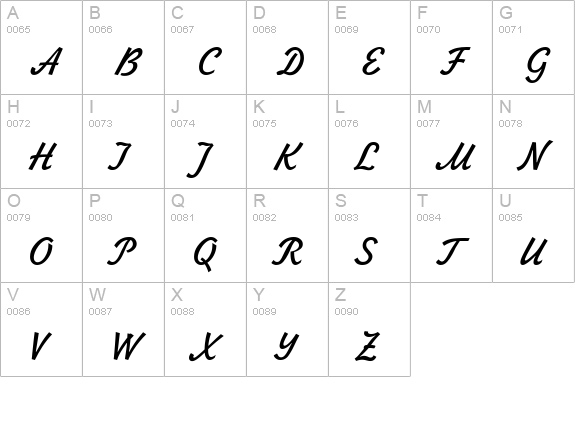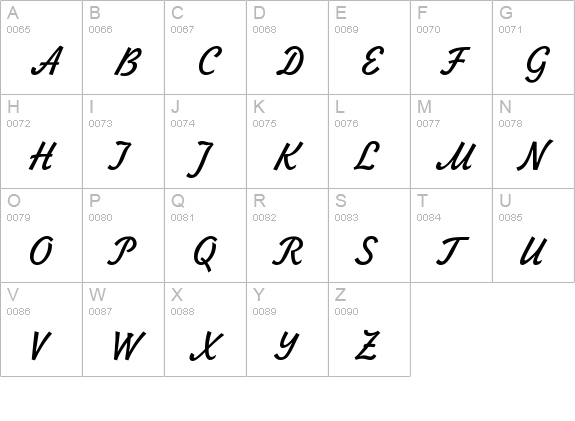
Laskoner Font Details
Introducing Laskoner, a stunning font that effortlessly combines elegance with a touch of modernity. With its sleek and sophisticated design, Laskoner is perfect for a wide range of creative projects, from branding to editorial design and beyond. This captivating font features clean, crisp lines that create a sense of professionalism and refinement. Its carefully crafted letterforms exude a sense of confidence and class, making it a truly versatile typeface that can adapt to any design concept. Laskoner offers a diverse range of weights, from light and airy to bold and impactful, allowing you to effortlessly convey your message with the perfect emphasis. Its extensive character set includes both uppercase and lowercase letters, numbers, symbols, and punctuation, providing you with all the tools you need to create visually stunning designs. But what truly sets Laskoner apart is its availability as a free download on FontsMarket.com. That's right, you can now enjoy the beauty and versatility of Laskoner without spending a dime. Whether you're a seasoned designer or just starting out, this free font is a must-have addition to your creative arsenal. So why wait? Visit FontsMarket.com today and download Laskoner for free. Unleash your creativity and elevate your designs with this exquisite font that effortlessly combines timeless sophistication with a modern twist. Don't miss out on this incredible opportunity to enhance your projects with Laskoner - the font that is as stylish as it is accessible.